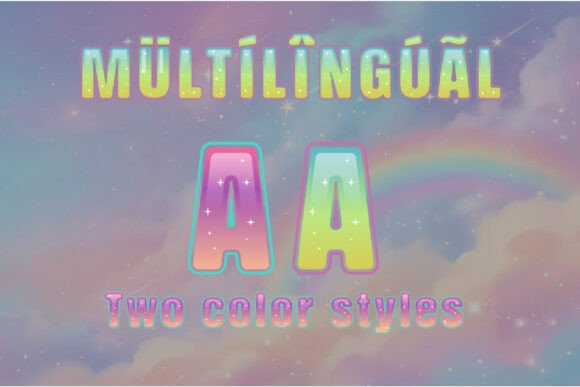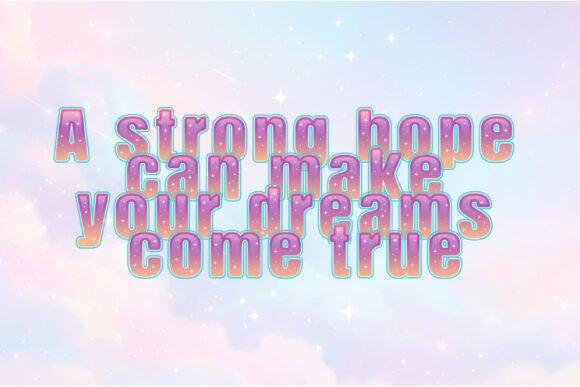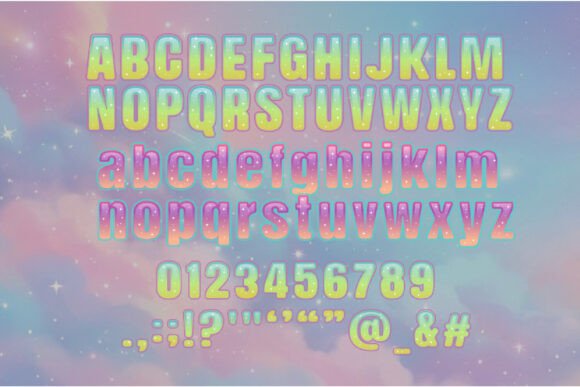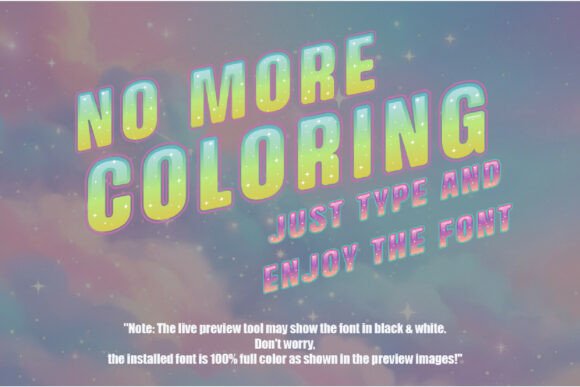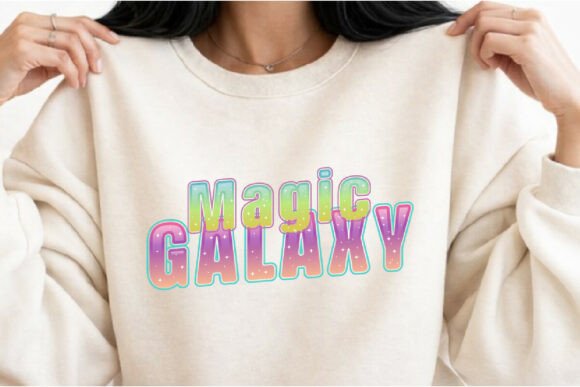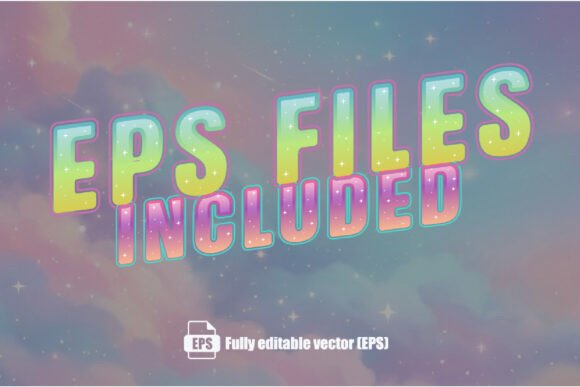
Bring Magic to Your Designs with Dreamy Glitter Font
Are you looking for a font that adds a touch of magic to your designs? Look no further than Dreamy Glitter, a premium OpenType-SVG color font that features a stunning iridescent pastel gradient of pink, purple, and soft orange, accented with delicate magical sparkles. This beautiful font is perfect for designers and crafters who want to add a little extra sparkle to their work.
What Makes Dreamy Glitter Special?
Dreamy Glitter is crafted with precision through manual vector tracing, ensuring clean lines and a professional finish for all your creative projects. The font features a unique and eye-catching design that is sure to capture the attention of your audience. The iridescent pastel gradient gives the font a dreamy, ethereal quality that is perfect for a variety of design applications.
Dreamy Glitter is perfect for a wide range of design applications, including:
- Kids’ branding: Add a touch of magic to your kids’ branding with Dreamy Glitter. The font’s playful and whimsical design is sure to appeal to kids and parents alike.
- Birthday invitations: Make your birthday invitations stand out with Dreamy Glitter. The font’s colorful and festive design is perfect for celebrating special occasions.
- Magical-themed posters: Create eye-catching posters with Dreamy Glitter. The font’s magical and whimsical design is sure to capture the attention of your audience.
- Social media content: Add a touch of magic to your social media content with Dreamy Glitter. The font’s colorful and playful design is perfect for creating engaging and shareable content.
- Dreamy product packaging: Make your product packaging stand out with Dreamy Glitter. The font’s unique and eye-catching design is sure to capture the attention of your customers.
Tips for Using Dreamy Glitter
Here are a few tips for using Dreamy Glitter in your designs:
- Experiment with different colors: While the font’s default colors are beautiful, you can also experiment with different colors to match your brand or design.
- Use it sparingly: While Dreamy Glitter is a beautiful font, it can be overwhelming if used too much. Use it sparingly to add a touch of magic to your designs.
- Pair it with other fonts: Dreamy Glitter pairs well with other fonts, especially sans-serif fonts. Experiment with different font combinations to find the perfect look for your design.
Dreamy Glitter is a beautiful and versatile font that is perfect for designers and crafters who want to add a touch of magic to their work. With its stunning iridescent pastel gradient and delicate magical sparkles, this font is sure to capture the attention of your audience. Whether you’re designing for kids’ branding, birthday invitations, magical-themed posters, social media content, or dreamy product packaging, Dreamy Glitter is the perfect choice.